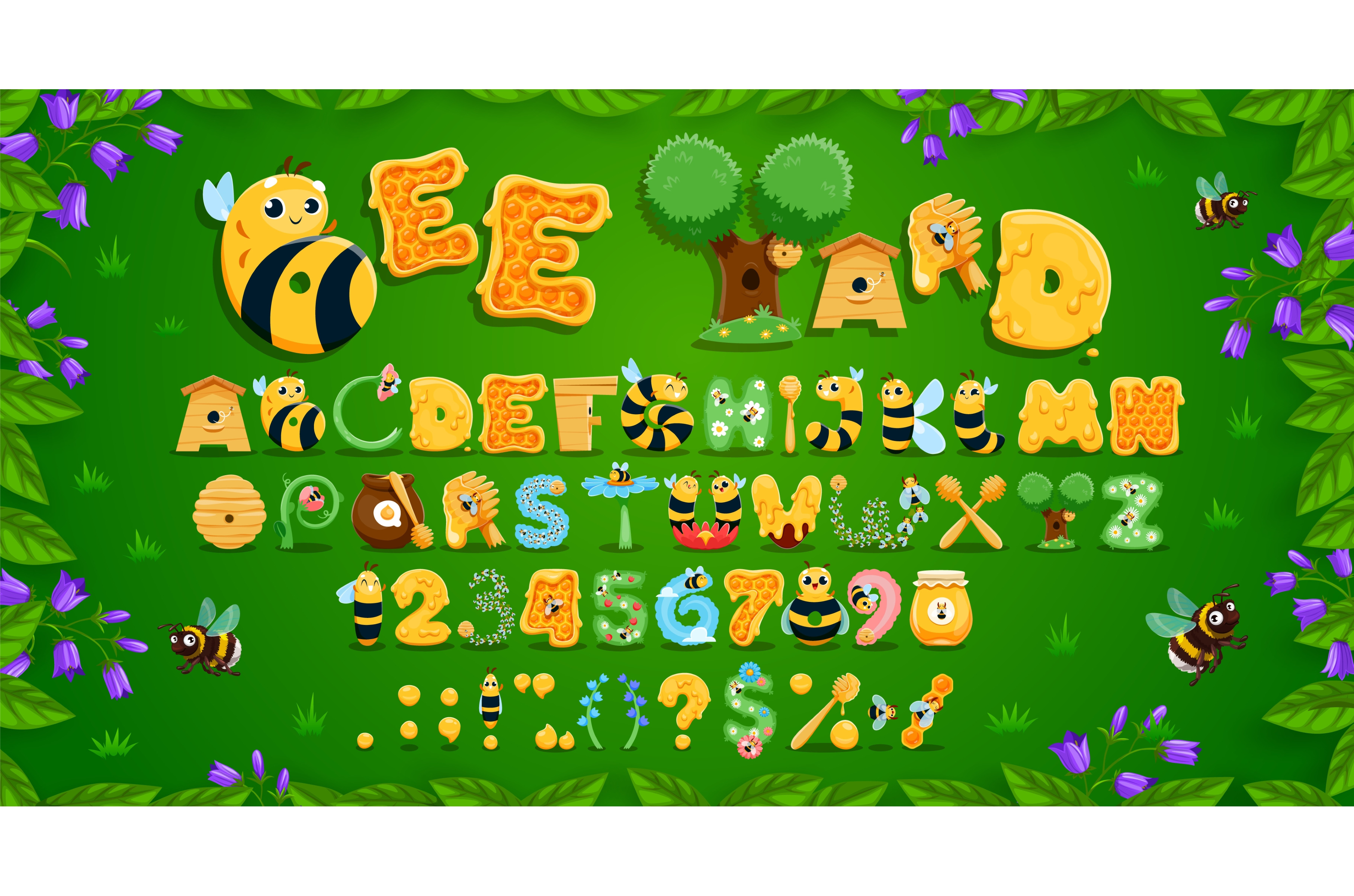
Funny beekeeping typeface
Funny beekeeping typeface, cartoon honey bee font, apiary type, kids english alphabet vector typography. Honey and bee characters font letters and numbers, honeycombs, jars and hives in flowers frame